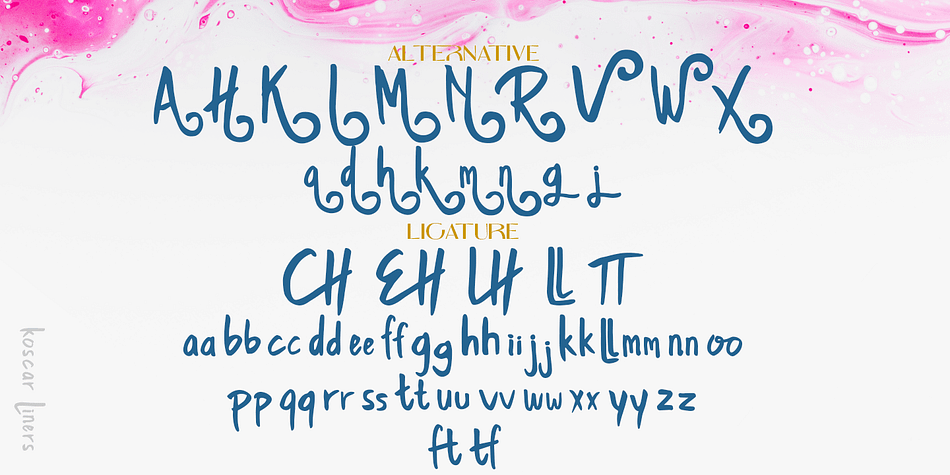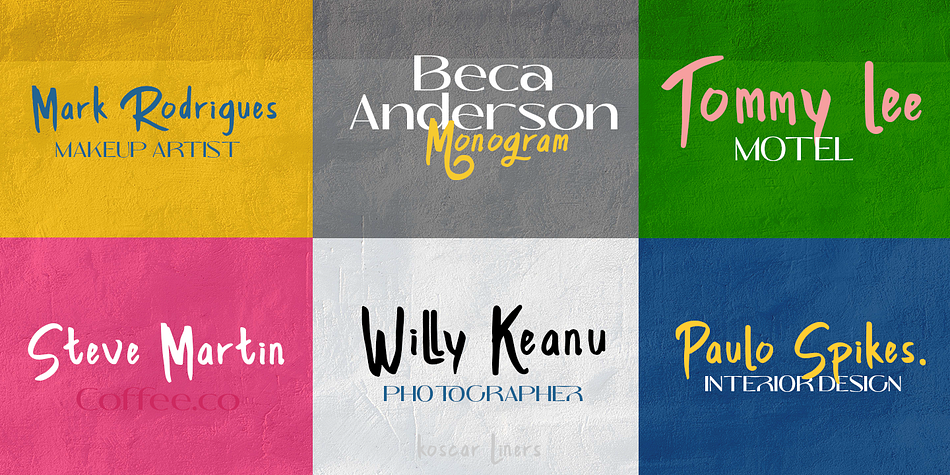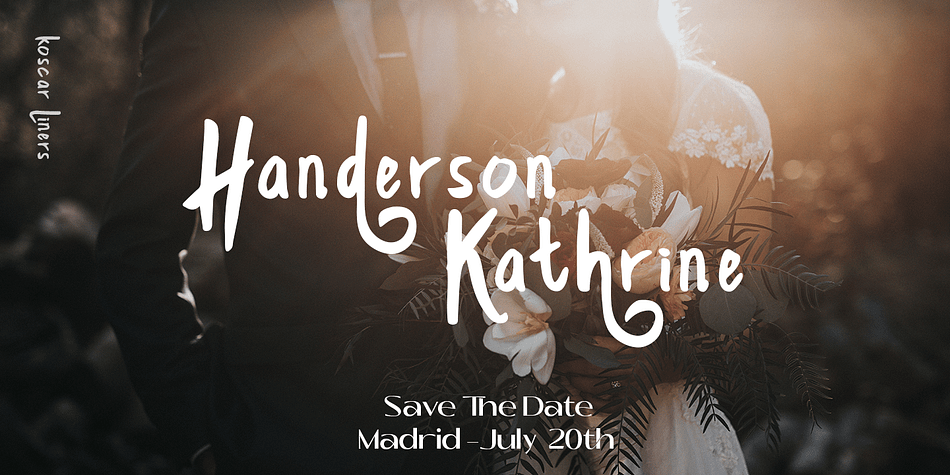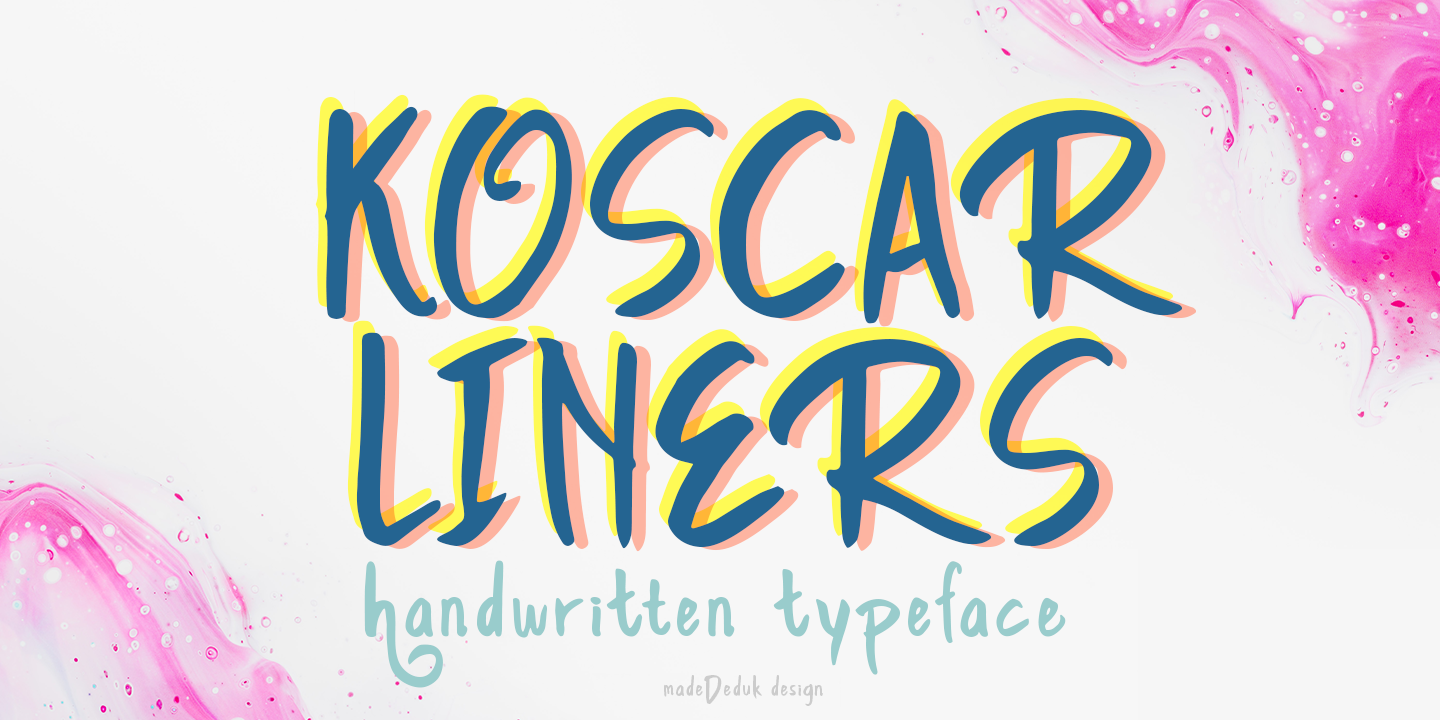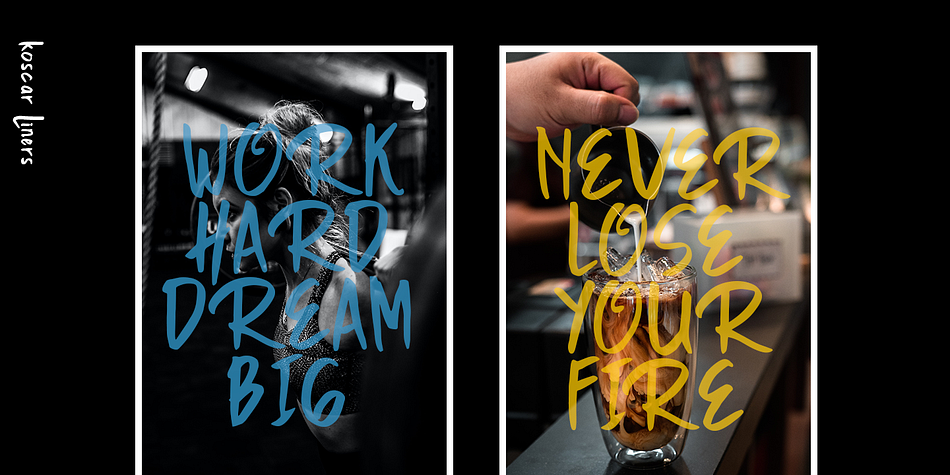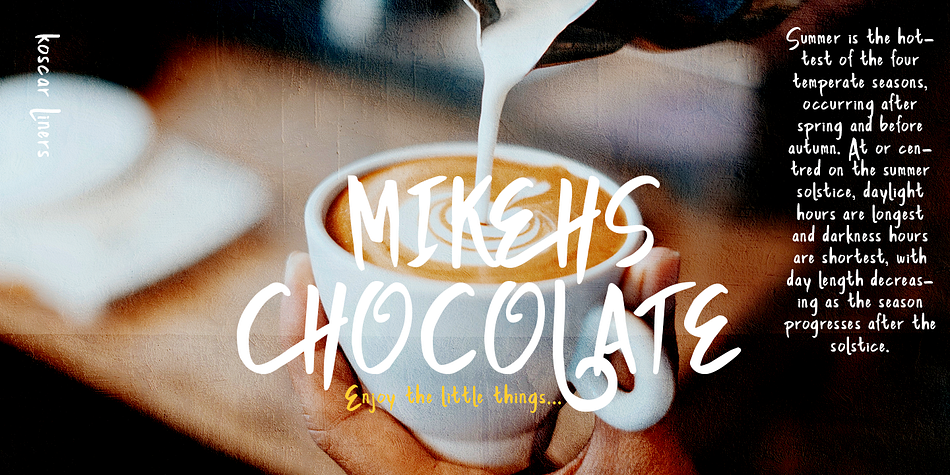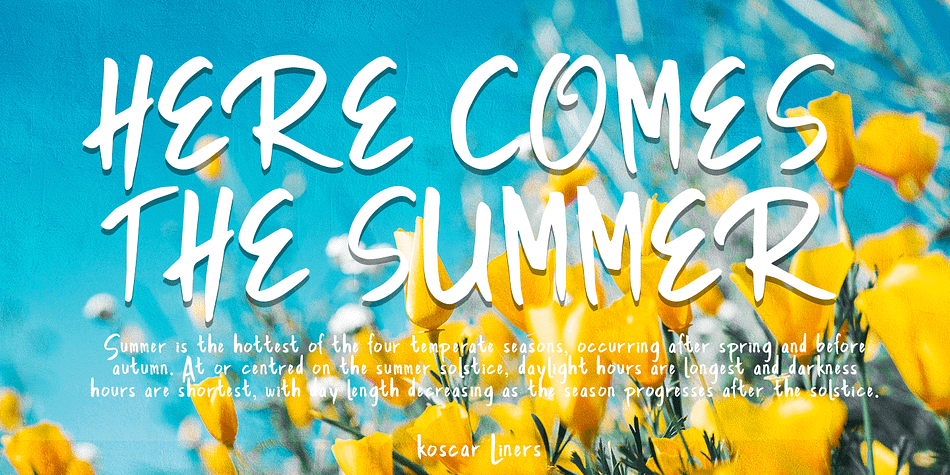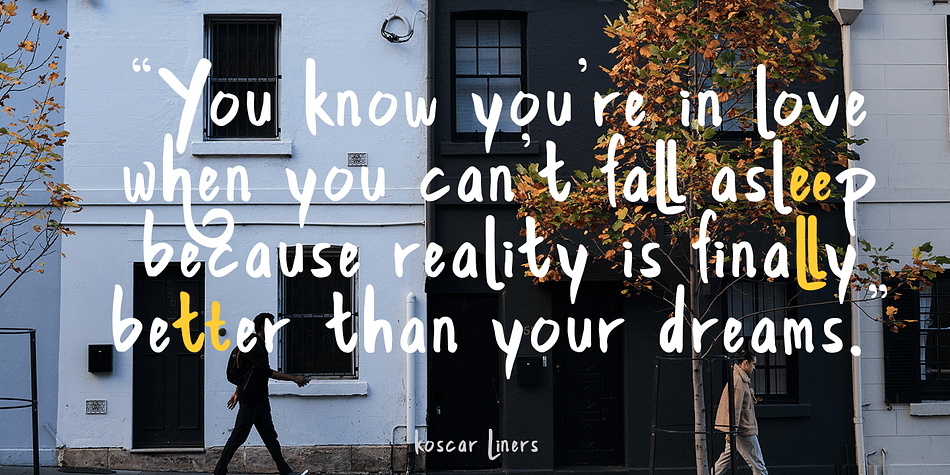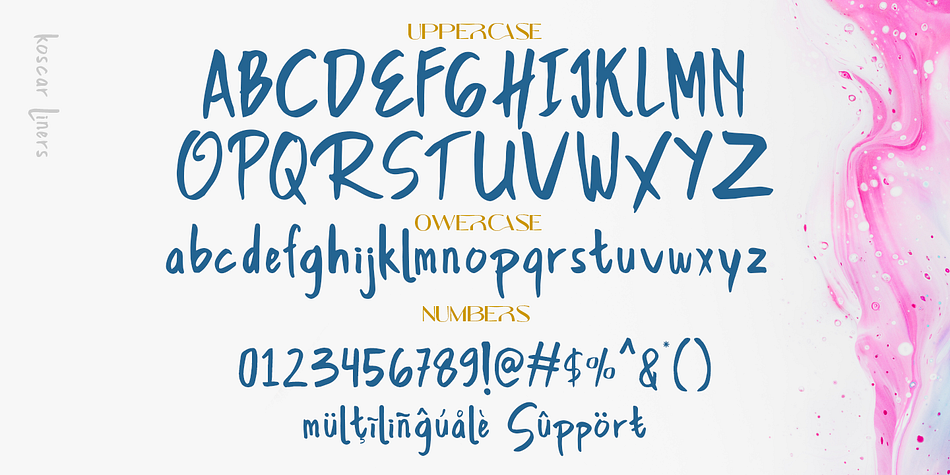
Koscar Liners
Designed by Suandana Ipandemade, Koscar Liners is a hand drawn font family published by madeDeduk.
Introducing Koscar Liners is a realistic handwritten font and will be perfect for book, title branding, product packaging, invitation, quotes, label, poster, logo etc.
- Alternative
- Ligature